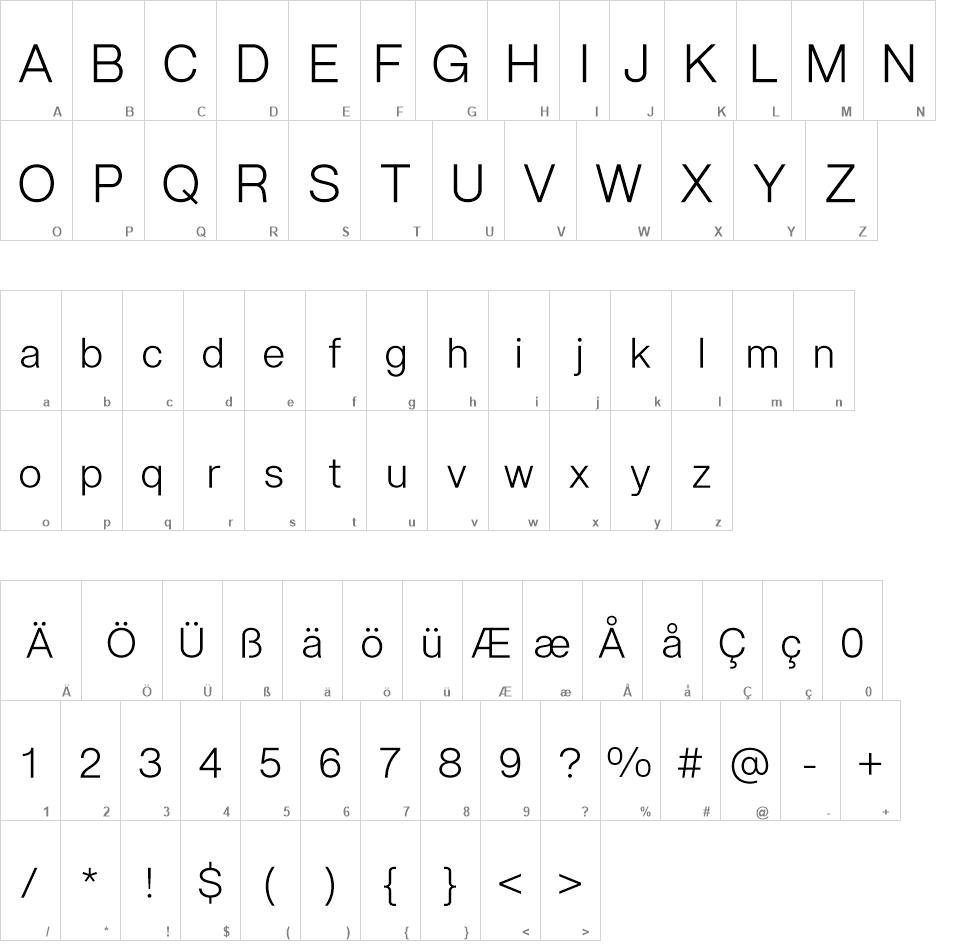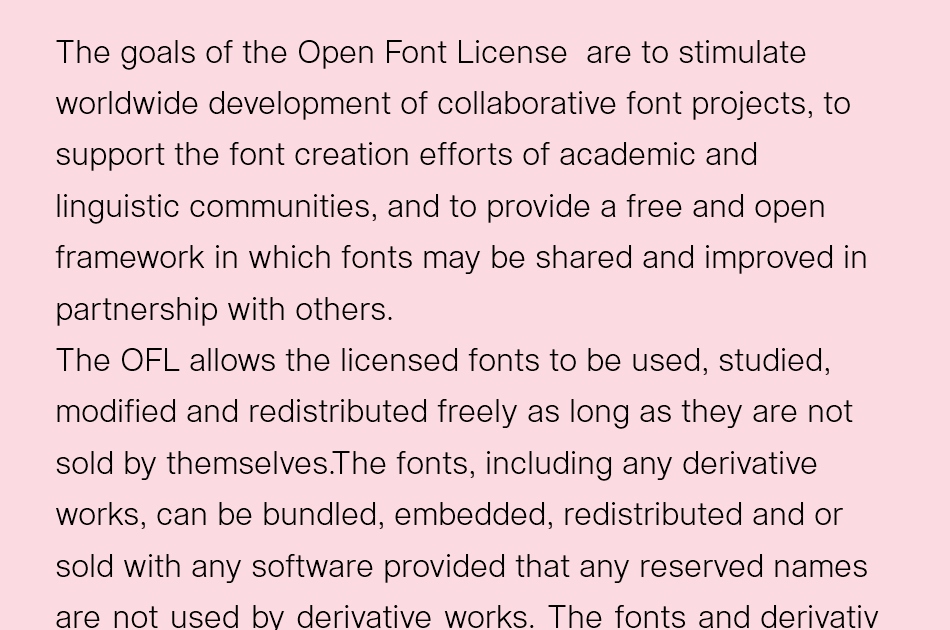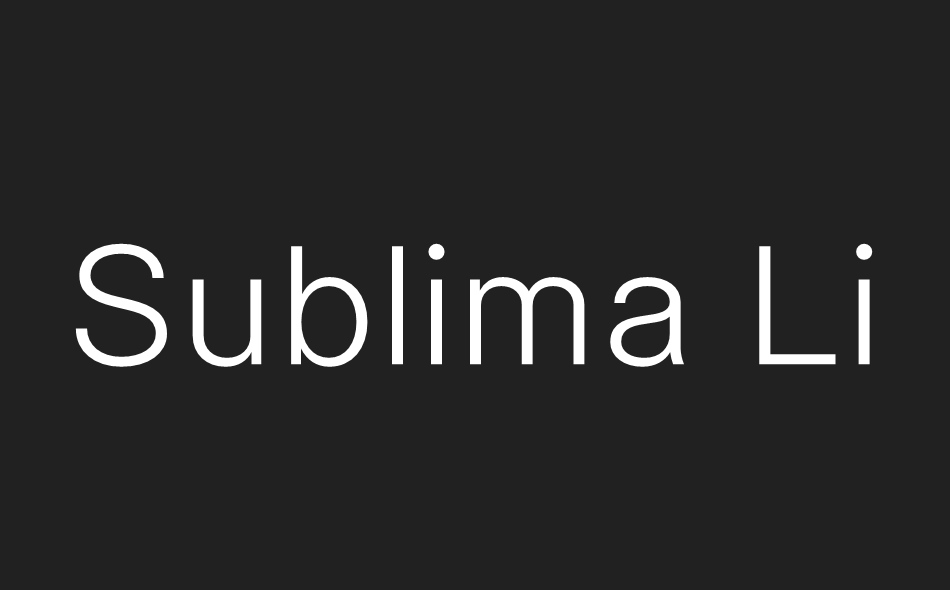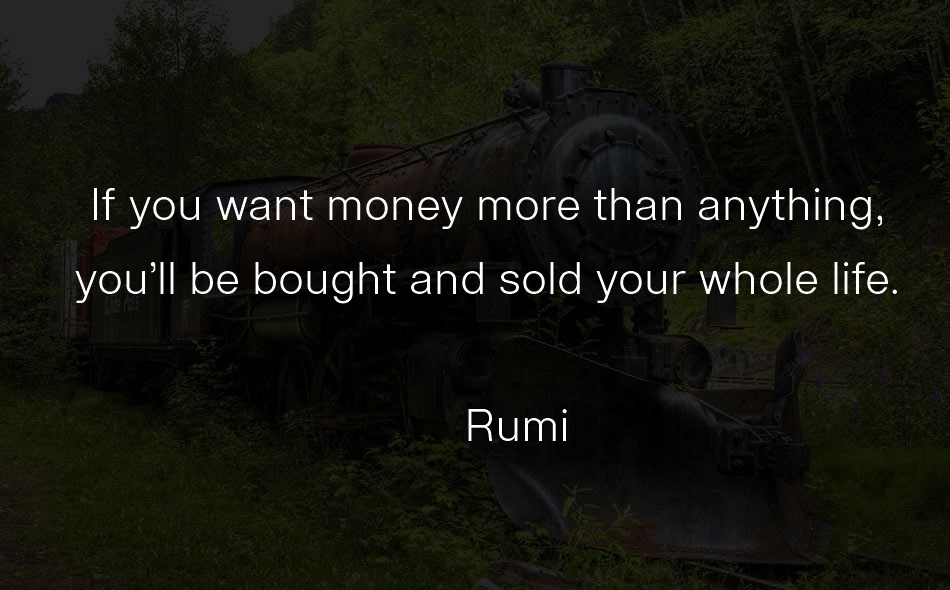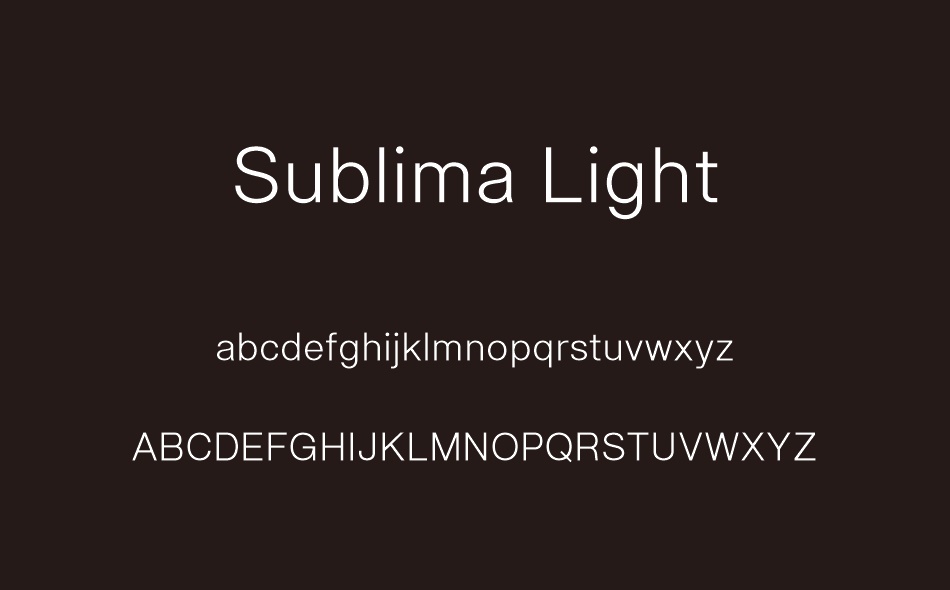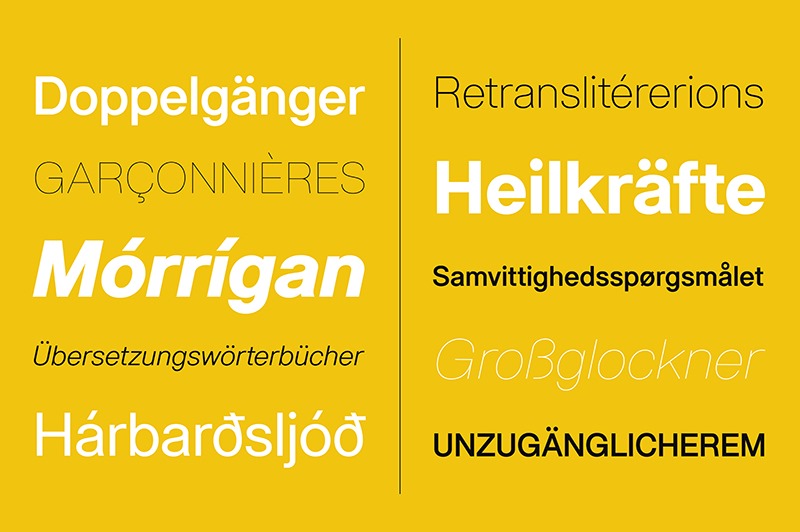
Sublima font
Features:
828 glyphs in 20 fonts
280 alternative glyphs
11 stylistic sets
15 OpenType features
Sublima is a modern neo-grotesque sans serif font designed by Mihai Sorin and published by Punchform in 2021. The family has 20 weights 10 uprights and 10 italics ranging from Thin to Black. The Light and ExtraBold weights are free of charge, so you can use them for both personal and commercial projects.
Sublima allows graphic designers to create advanced typographical layouts by offering 280 alternative glyphs and 11 stylistic sets.
Each weight includes extended language support and 15 powerful OpenType features such as stylistic alternates, contextual alternates, standard ligatures, glyph composition/decomposition, localized forms, case-sensitive forms, ordinals, proportional figures, tabular figures, slashed zero, numerators, denominators, fractions, superscript, and subscript.